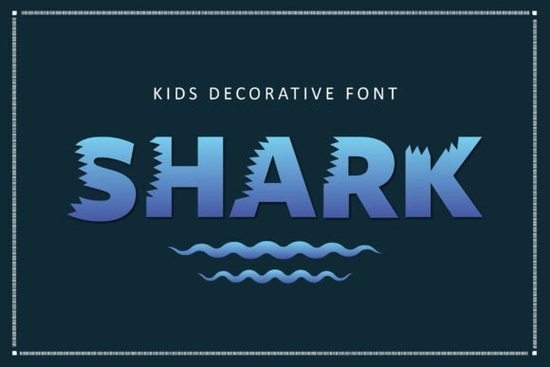
If you need a bold, playful font that immediately says "ocean" and "fun," the Shark Font is a great choice. It’s a high-energy decorative typeface with jagged, tooth-like edges that mimic a shark’s bite. Perfect for kids’ branding, aquatic themes, and any project that needs a little bite without losing readability.
What can you use the Shark Font for?
This font works well for anything aimed at children or water-related activities. Think swim team logos, birthday party invitations for a "jaw-some" theme, book covers for ocean adventures, or even packaging for a beach toy line. The blocky, sturdy letterforms keep it legible even at small sizes, so it’s also useful for banners, stickers, and social media graphics.
Because the serrations are strong but not overly sharp, the font stays friendly. Kids and parents alike will appreciate the adventurous look without it feeling scary.
Is it easy to read in longer texts?
Shark Font is designed as a display typeface, so it’s best for headlines, titles, and short phrases. You wouldn’t want to set a whole paragraph in it. But for a catchy title on a children’s book or a poster, it’s very clear thanks to its thick, uniform strokes. The jagged edges add character without breaking the letter shapes.
How does Shark Font compare to other decorative fonts?
If you’ve used other bold decorative fonts like Paulette Font (a whimsical handwritten style) or Aruna Font (a modern serif), you’ll notice Shark is more aggressive and playful at the same time. It sits somewhere between a rugged stencil and a cartoon block font. For a sportier underwater look, you might also check out Blazter Font (sharp angles) or Birch Font (nature-inspired). Each has a different mood, but Shark is the only one that directly gives you that "shark bite" texture.
If you’re working on a project that needs a friendly ocean theme, Shark Font stands out. For something more elegant, you might mix it with a clean sans-serif for the body text. Many designers pair it with a soft rounded font to balance the sharp edges.
Can I use Shark Font for print-on-demand products?
Absolutely. This font is great for t-shirts, mugs, tote bags, and stickers. The thick lines mean your design stays visible even on dark fabrics or small items. Just remember that the jagged edges might need a little extra clearance if you’re printing on uneven surfaces. Test a sample first.
For a full set of ocean-themed designs, you could combine Shark Font with related graphics like waves, fish, or bubbles. It also works well as a standalone headline on a product like a kids' water bottle.
What should I look out for when using Shark Font?
- Kerning: Some letter pairs (like "AV" or "WA") may need manual spacing because the jagged edges can overlap. Check your design software’s tracking.
- Size: Use it large enough to show the tooth details. At very small sizes (below 18pt) the serrations might look muddy.
- Color: Light blues, teals, and sandy yellows complement the ocean vibe. Avoid dark backgrounds that hide the edges.
Shark Font is a fun, reliable choice when you need immediate impact with an ocean twist. Use it boldly, and your designs will definitely make a splash.